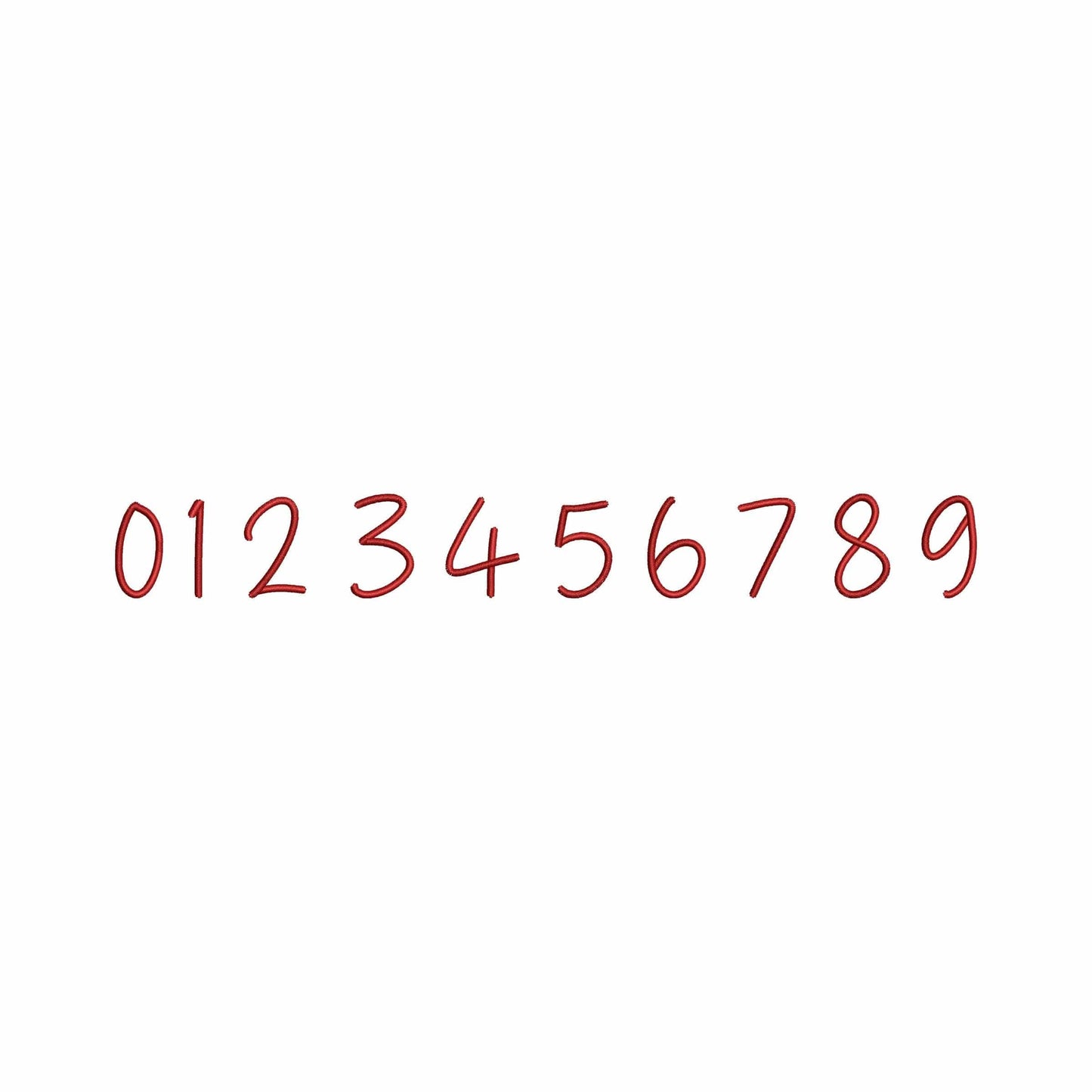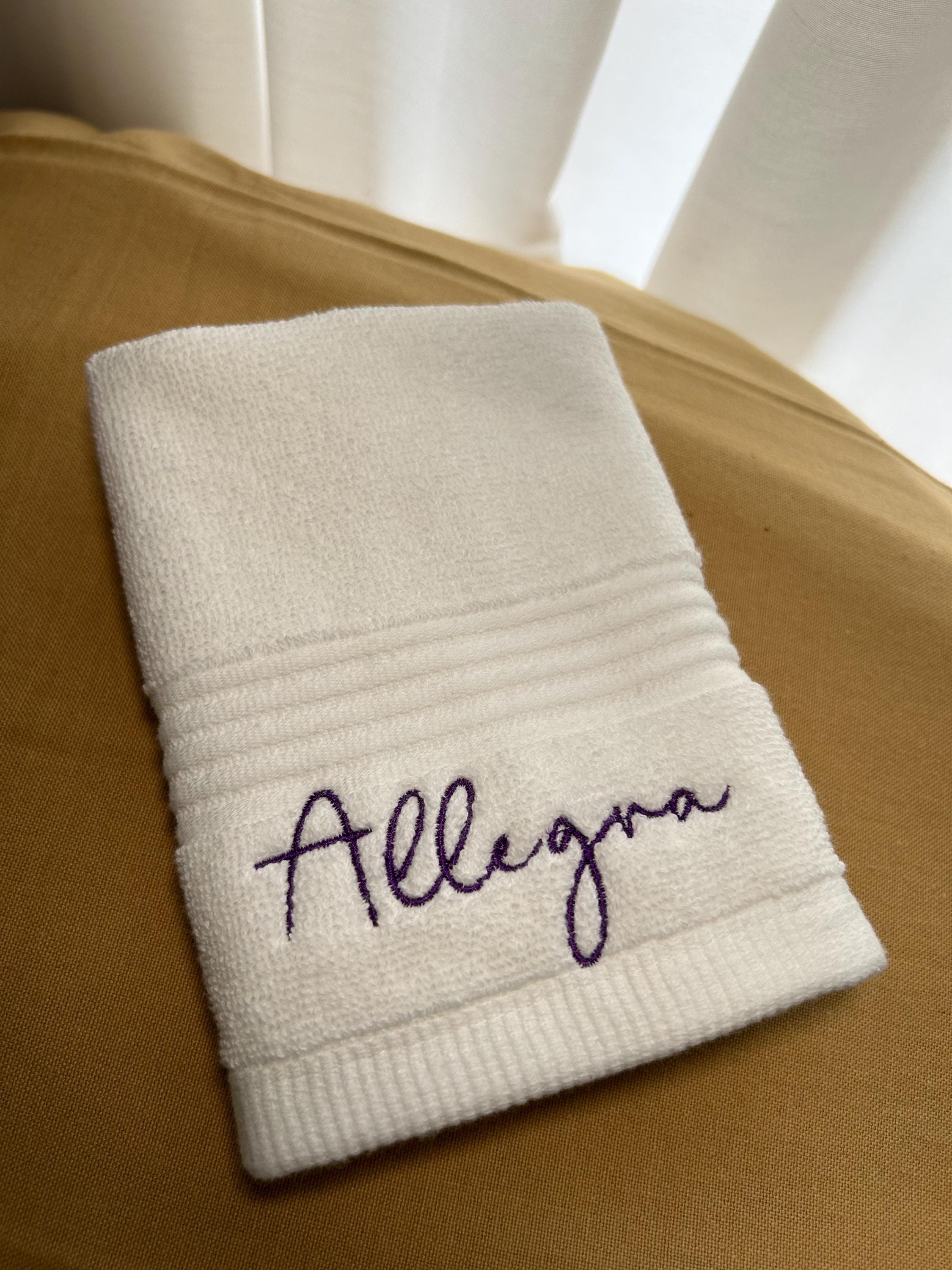
Helena - Embroidery font
• Included: A-Z (uppercase), a-z(lowercase), 0-9 (numbers)
This machine embroidery font works well for monograms, towels, keepsakes, shirts, and elegant personalized embroidery.
A useful digital download for makers who want thin script lettering for feminine custom projects and polished names.